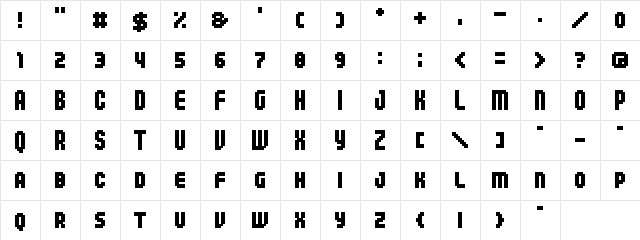
04b_25 Regular
Design Context for 04b_25 Typeface
04b_25 takes a measured approach to typography — its balanced proportions and neutral character make it a reliable workhorse for both digital and print work.